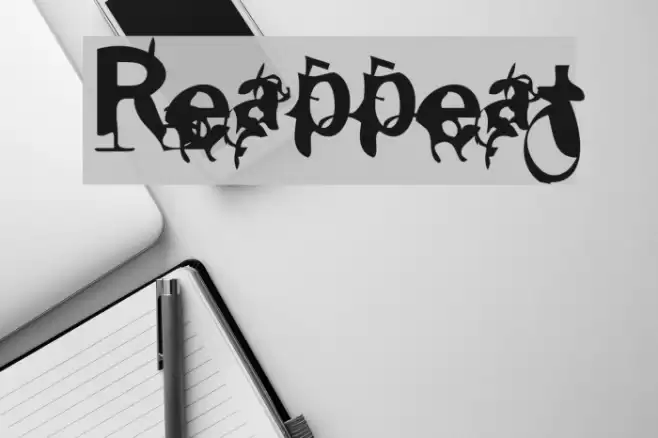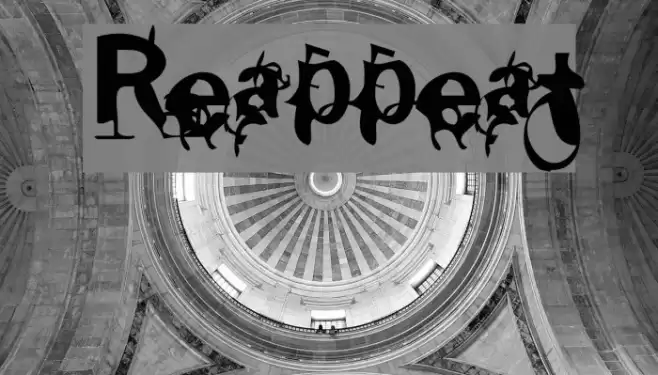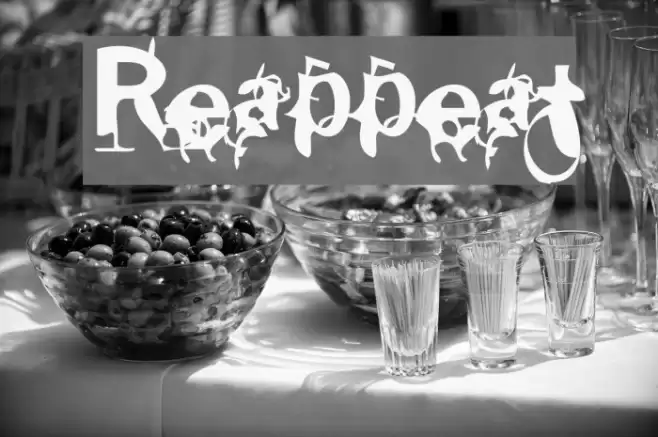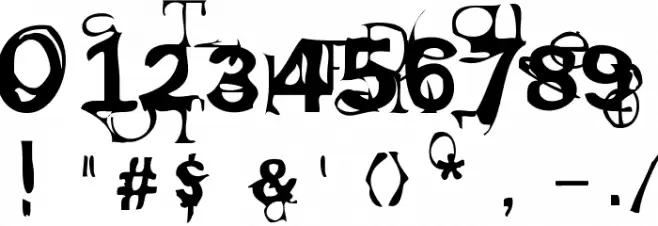
Reappeat Font
Reappeat Description
This font features an intricate and chaotic design, with overlapping and intertwining elements that create a sense of complexity and depth. The characters are heavily stylized, with exaggerated curves and sharp angles that give it a unique and artistic appearance. The uppercase and lowercase letters, as well as the numbers and special characters, all share this distinctive style, making it a cohesive yet unconventional choice. The font's boldness and decorative nature make it stand out, though it may be challenging to read in longer texts due to its elaborate design.
A bold, decorative font with intricate, overlapping elements from Fancy fonts.
- Proposed Projects: Ideal for artistic projects, posters, album covers, or any design requiring a bold, statement-making font.
- Character Spacing: Tight